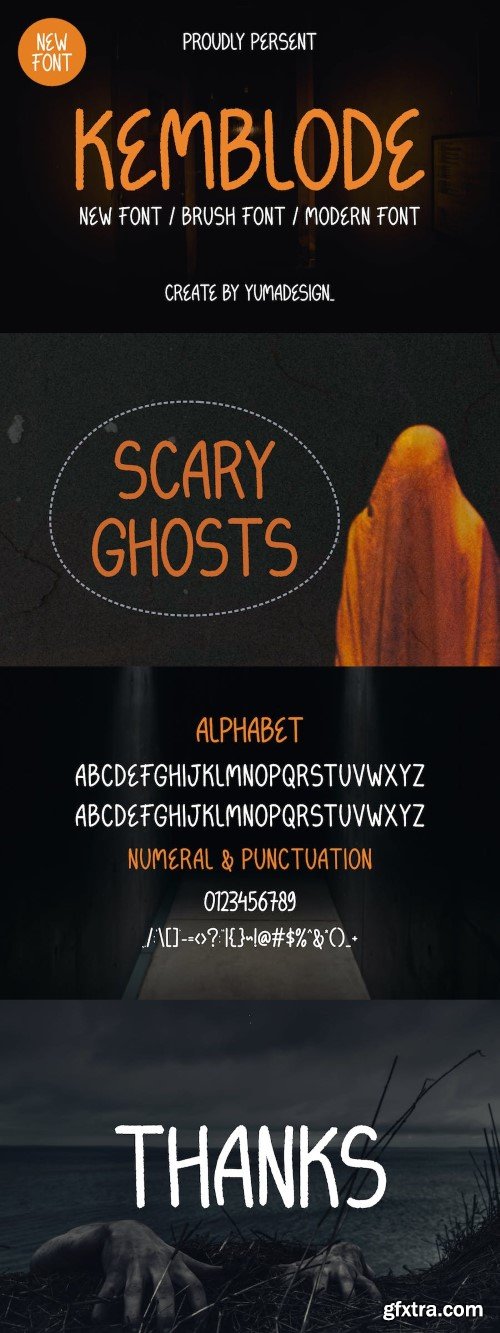
克莫德粗体Font
Introducing Kemblode Modern Sans Serif. Kemblode is a modern and simple font, best used as a display for headings, logos, branding, magazines, product packaging and invitations. Kemblode come with clean lines and smooth curves give any project an extra touch of class.